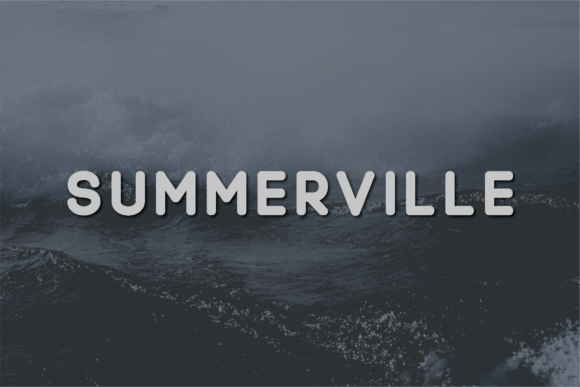
Prepare to be amazed as we unveil the enchanting Summerville Font, a masterpiece crafted by the celebrated A Christie. This exquisite sans serif font family exudes a seamless blend of modernity and timeless charm, making it an ideal choice for a myriad of creative endeavors.
Picture this: a Christmas card adorned with the graceful strokes of Summerville Font. The warmth and cheer of the season will radiate from every letter, conveying your heartfelt wishes with a touch of elegance. This font is not merely a collection of characters; it's a canvas upon which your imagination can paint a masterpiece.
From captivating logos that demand attention to enchanting wedding invitations that promise a day filled with love and laughter, Summerville Font will elevate your designs to new heights. Its crisp, clean lines and versatile nature make it a perfect companion for any project, whether you're creating eye-catching advertisements, stylish print designs, or captivating magazine layouts.
But don't just take our word for it. Step into the captivating world of Summerville Font and witness its transformative power firsthand. Let its graceful curves and elegant lines ignite your creativity and bring your most cherished ideas to life.
With Summerville Font at your fingertips, you'll discover a font that not only meets your design needs but also exceeds your expectations. Its timeless appeal and versatility will ensure that your creations stand the test of time, leaving a lasting impression on all who behold them.
So, embrace the magic of Summerville Font today and embark on a creative journey that will redefine your design possibilities. Let its enchanting strokes dance across your projects, captivating hearts and leaving an indelible mark on the world.